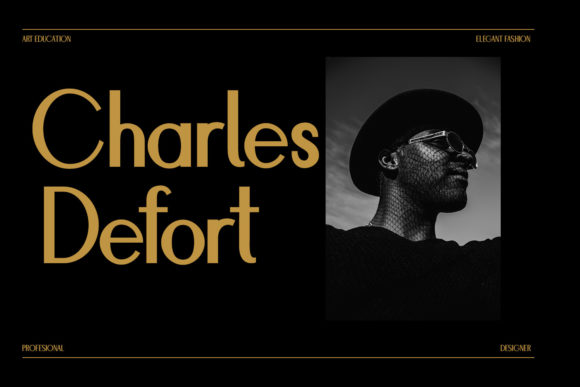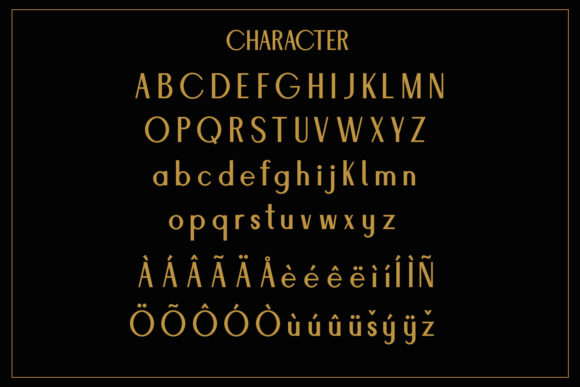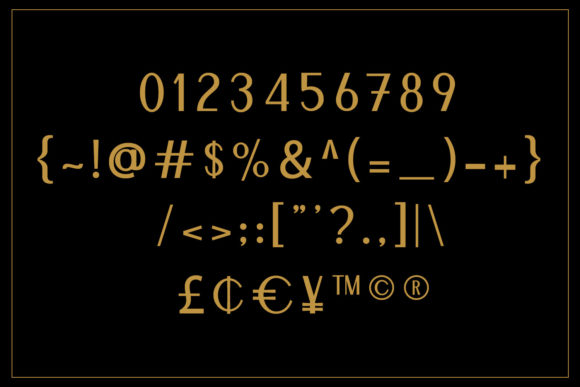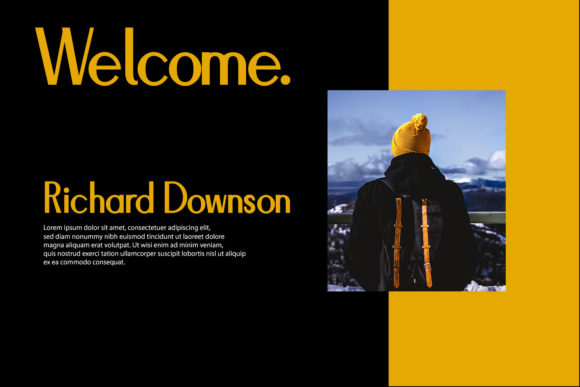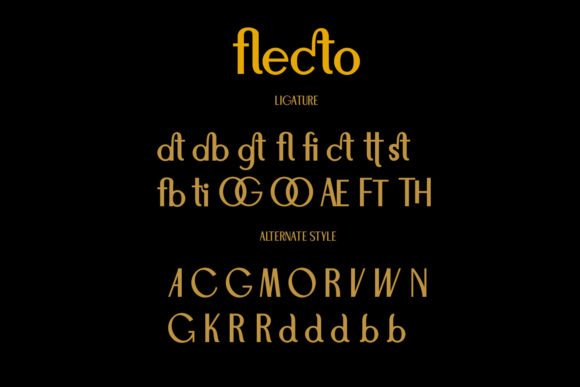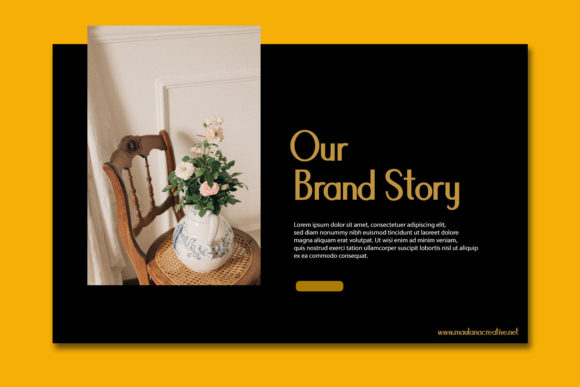
Introduction to Flecto Font
Flecto is a creative and modern display font, perfectly suitable for projects that need an artistic yet clean appearance.
Flecto is a creative and modern display font, perfectly suitable for projects that need an artistic yet clean appearance!
Key Features of Flecto Font
Why Choose Flecto Font?